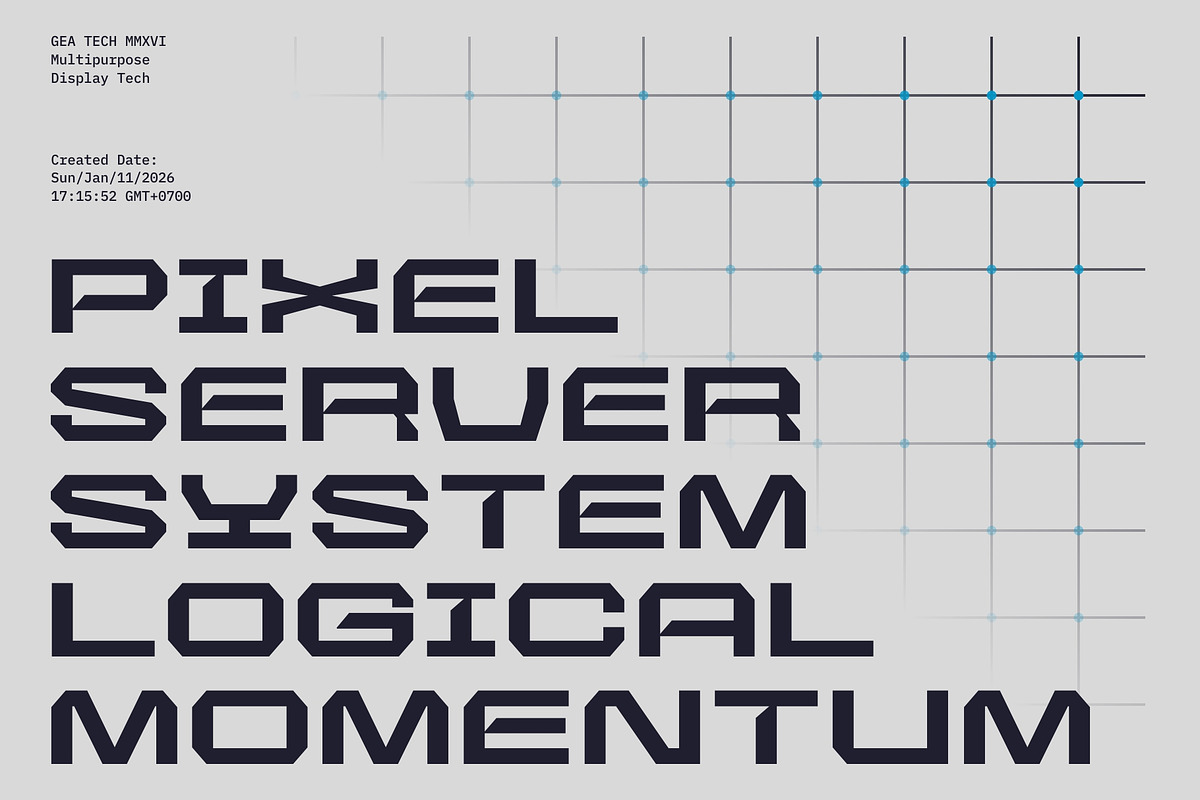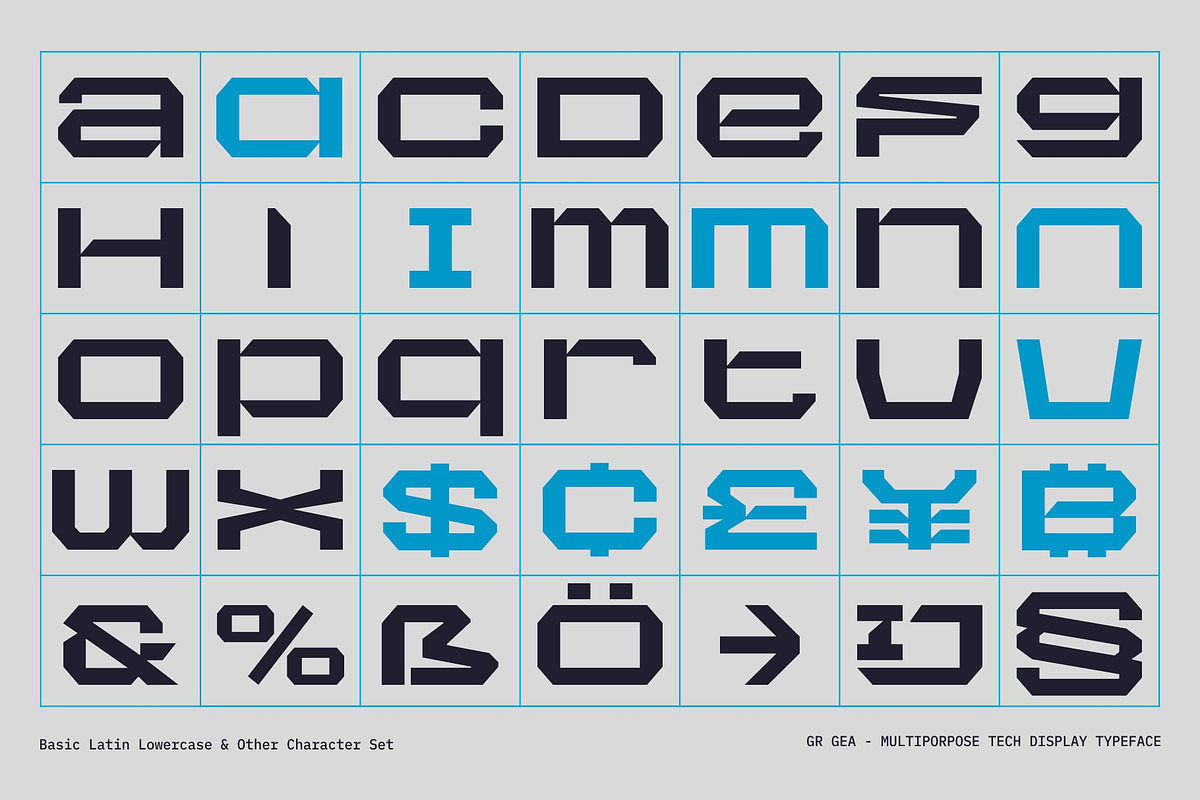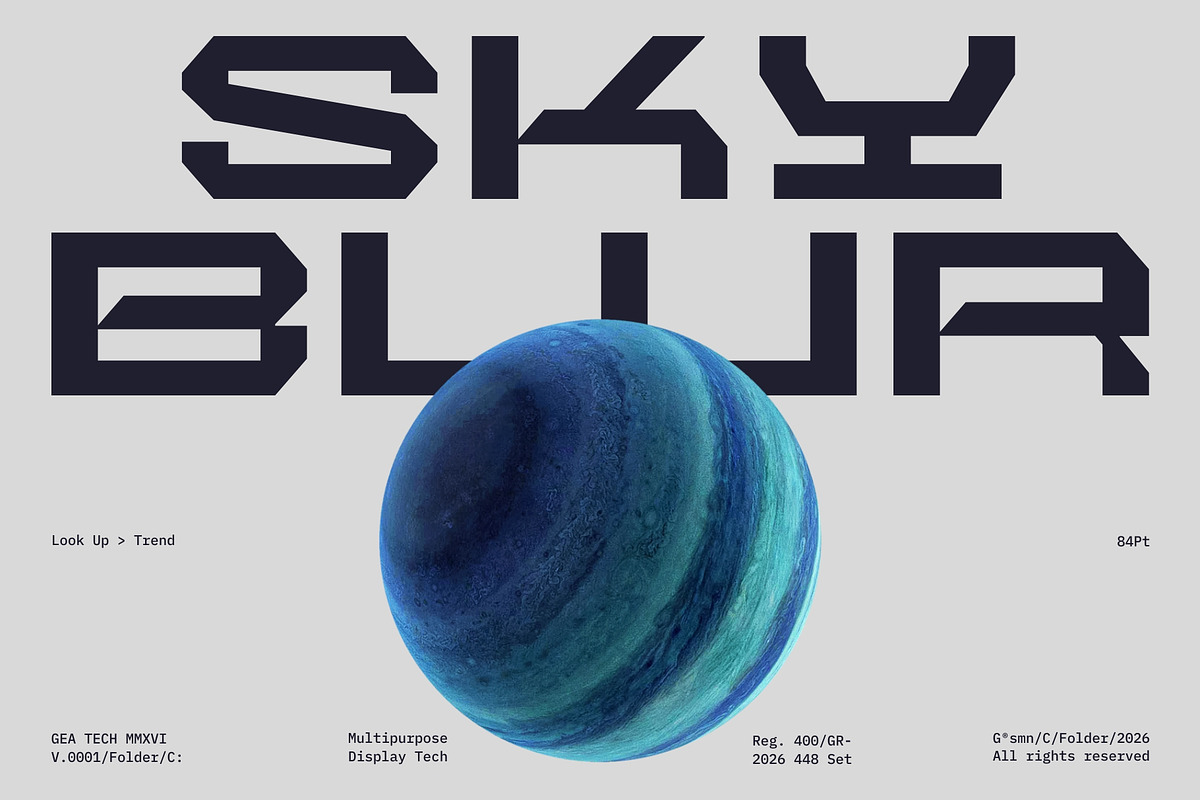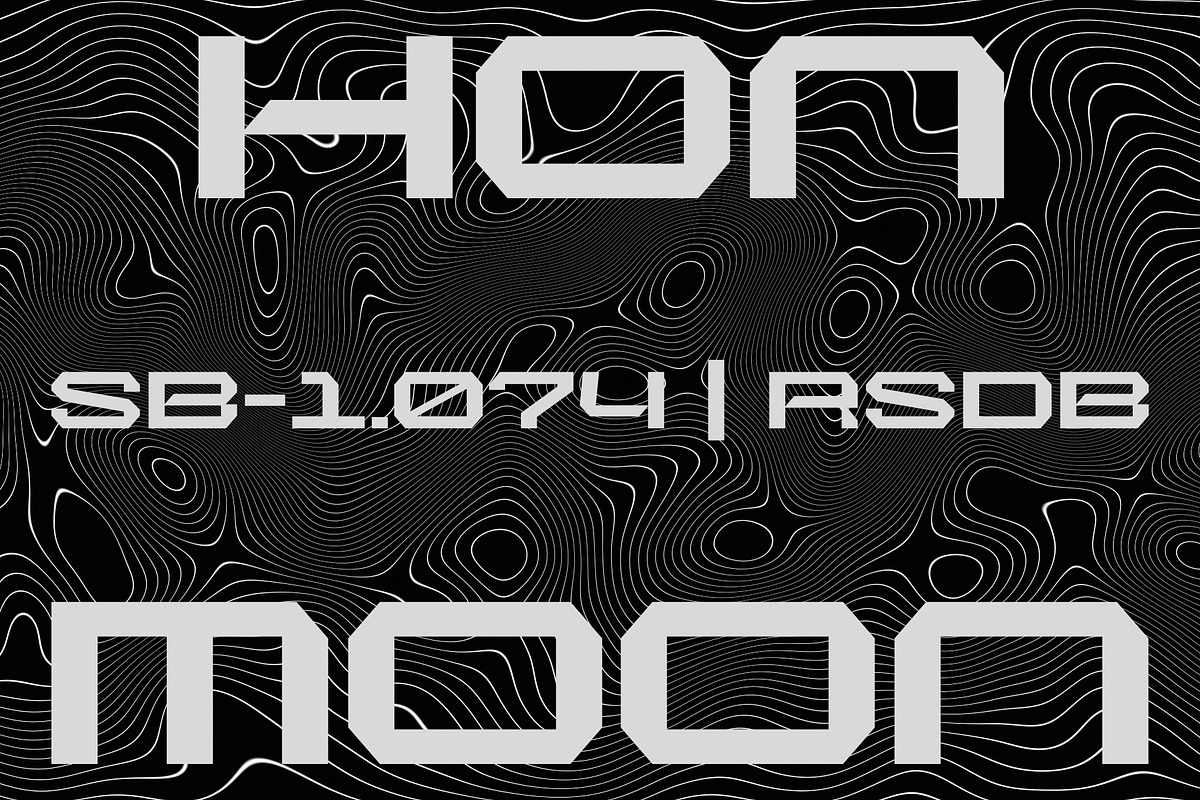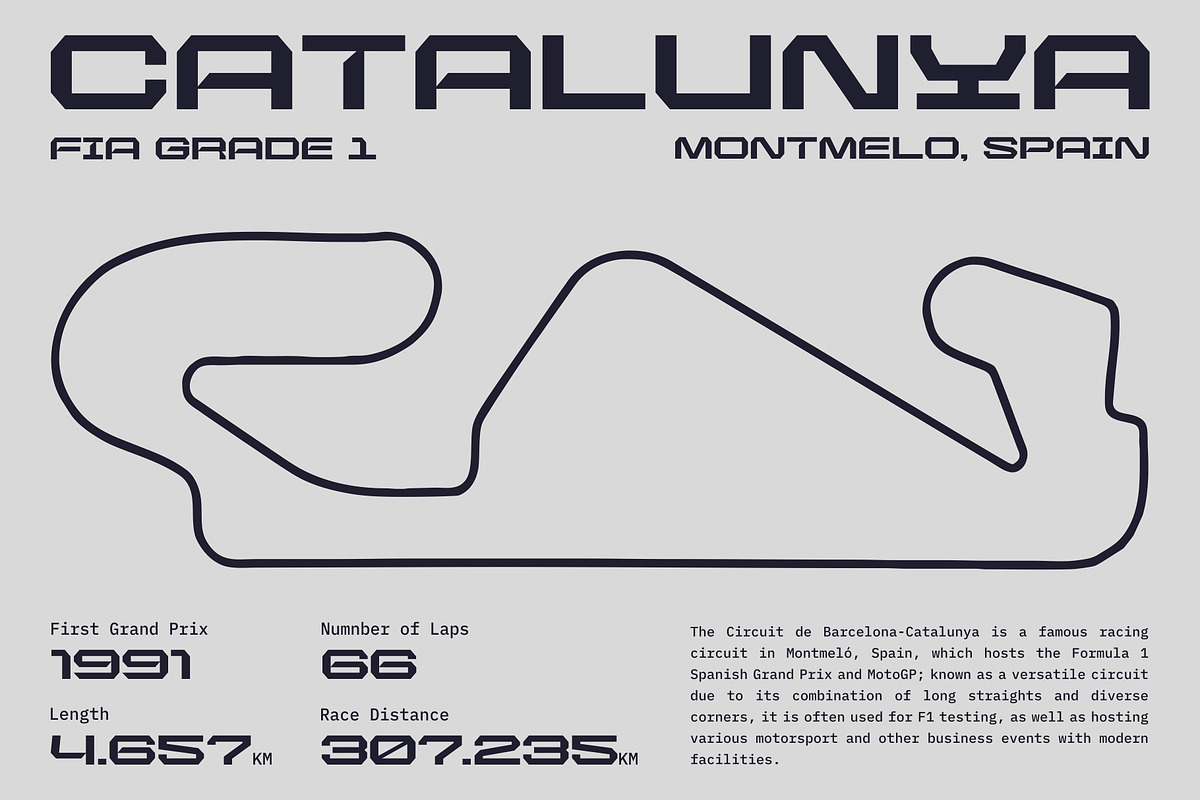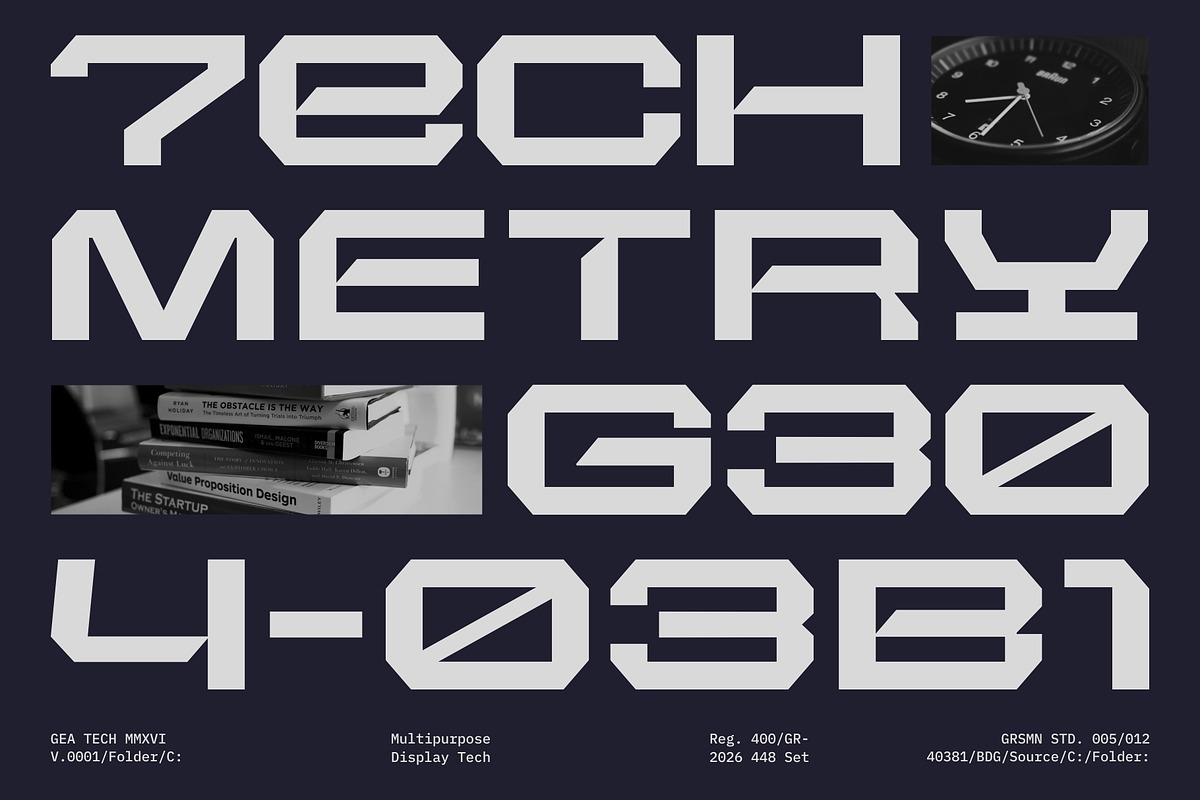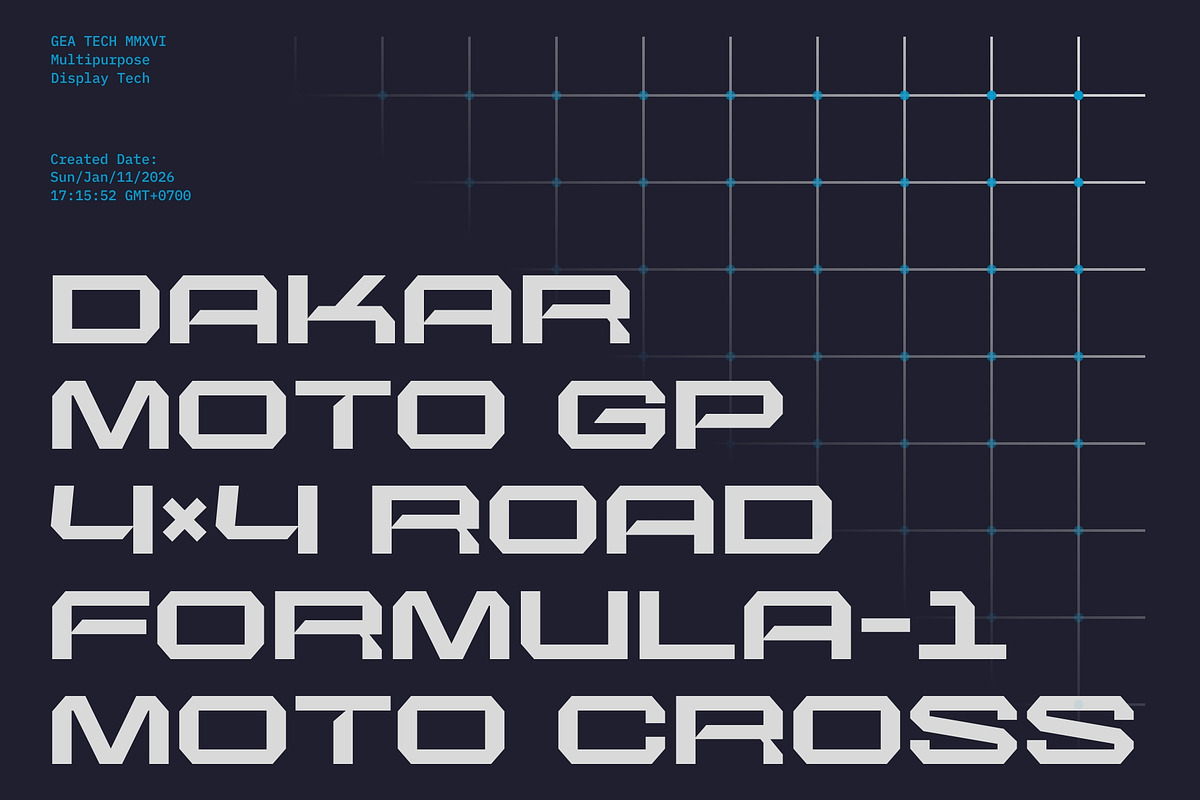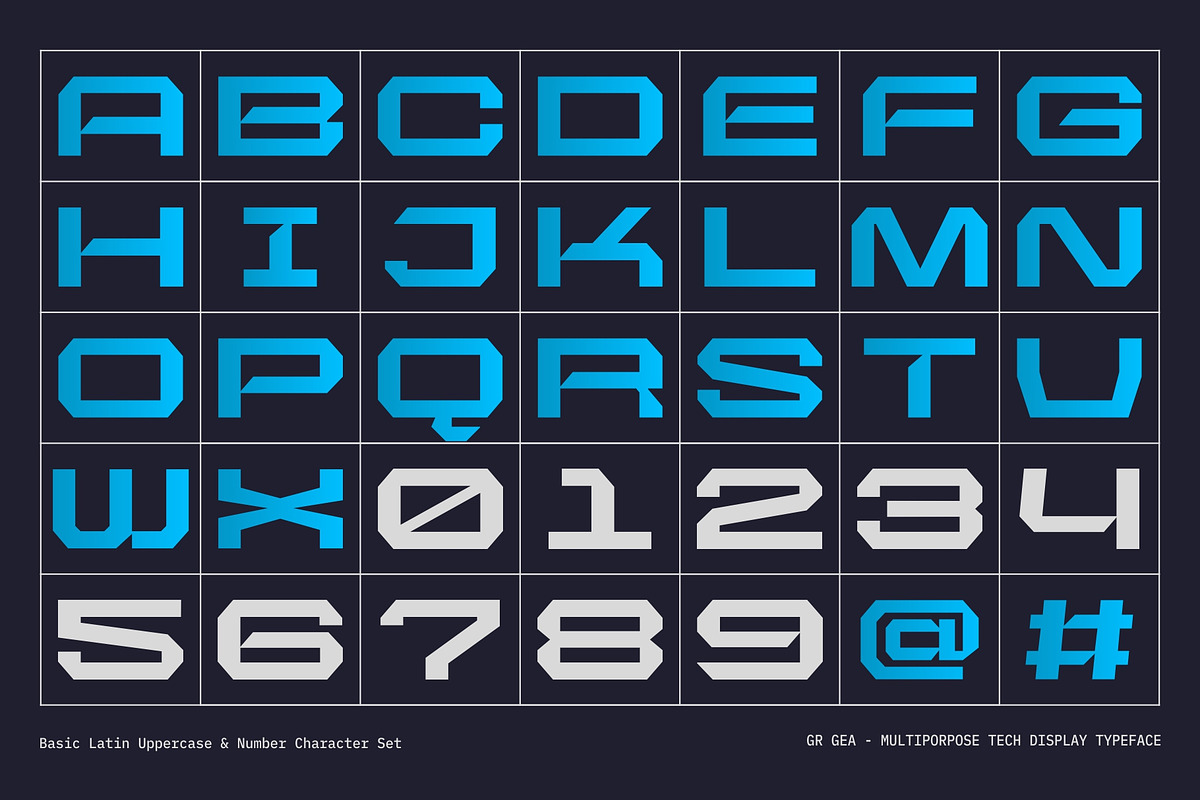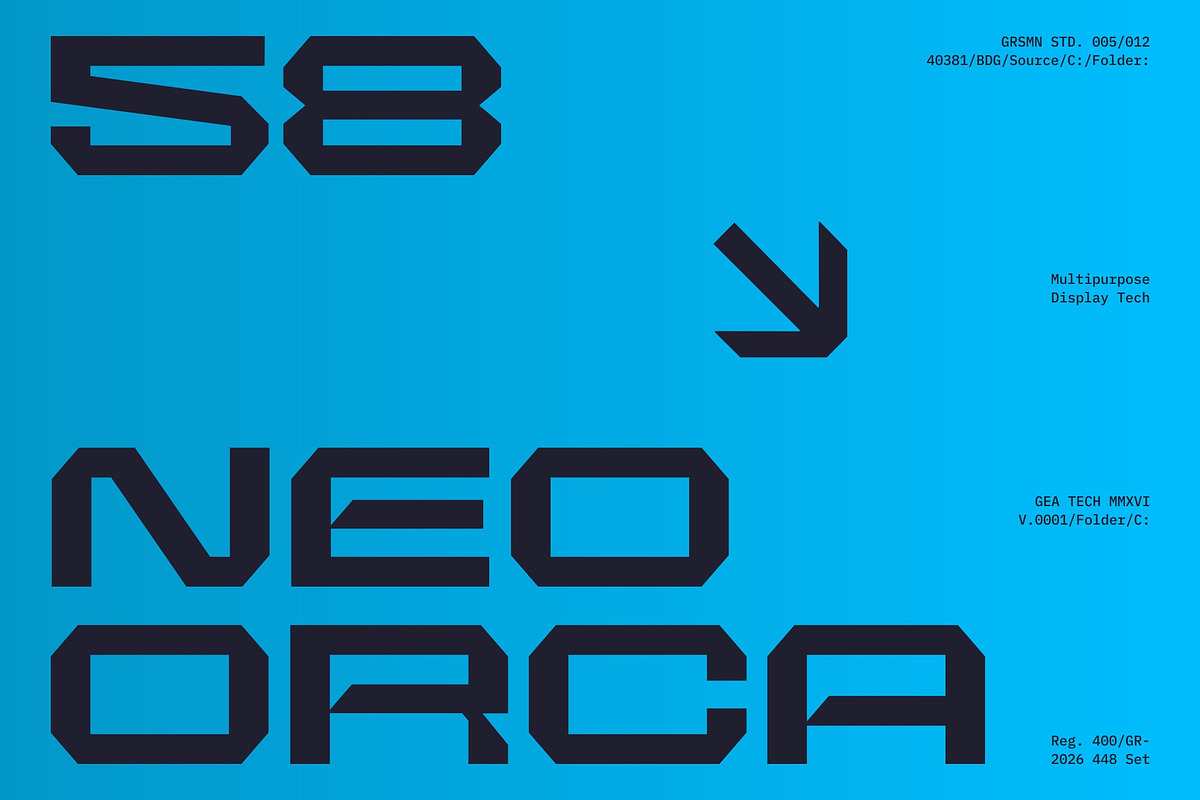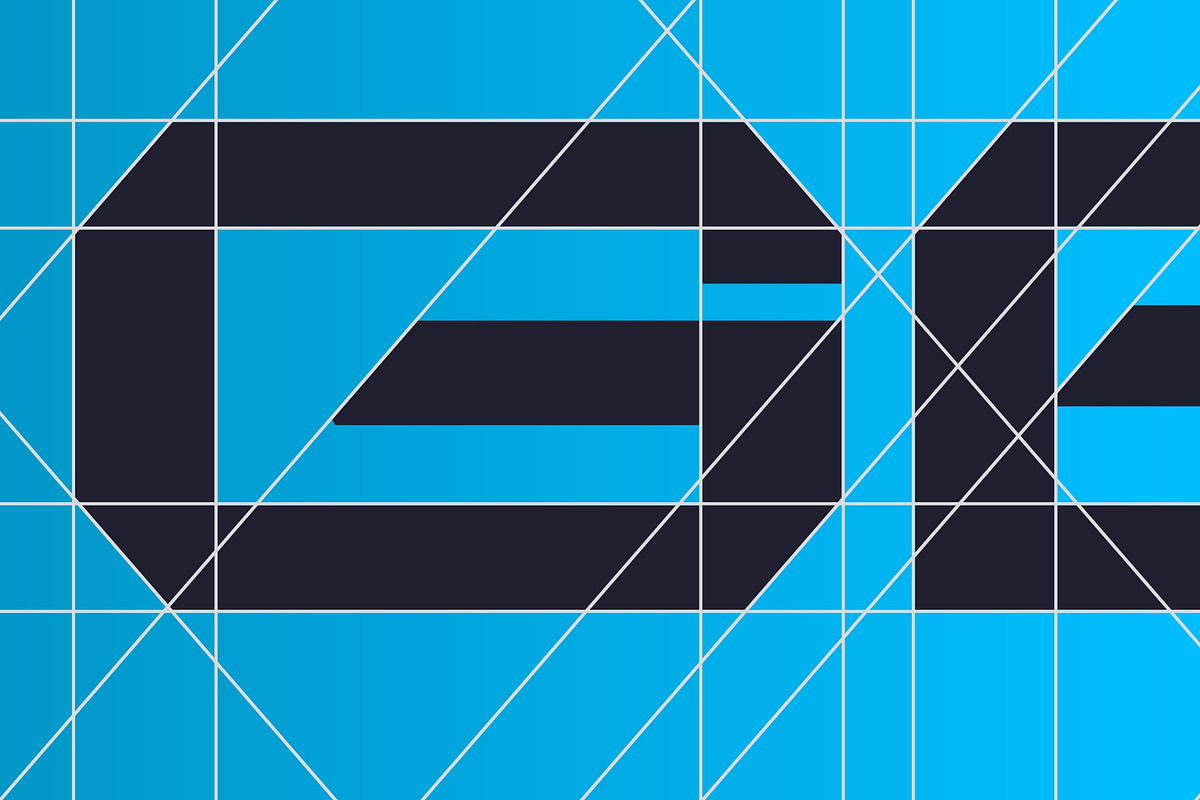
GR GEA – Tech Display Typeface
Meet GR GEA – Multipurpose Tech Display Typeface, a geometric sans serif built for futuristic titles and bold digital branding.
With its modular shapes, sharp cuts, and sci-fi attitude, GR GEA is perfect for:
- Game logos and UI
- Esports and tech branding
- Music and film posters
- Cyber, mecha, and industrial-themed layouts
- YouTube thumbnails and streaming covers
The consistent grid-based structure makes every letter and number feel like part of the same system—great for codes, stats, and bold typographic compositions. GR GEA includes useful OpenType options such as denominators, numerators, fractions, ordinals, stylistic alternates, localized forms, and a slashed zero, so you can fine-tune technical text and display details.
If you’re looking for a sci-fi tech display font for logos, posters, and futuristic interfaces, GR GEA is ready to plug into your next project.